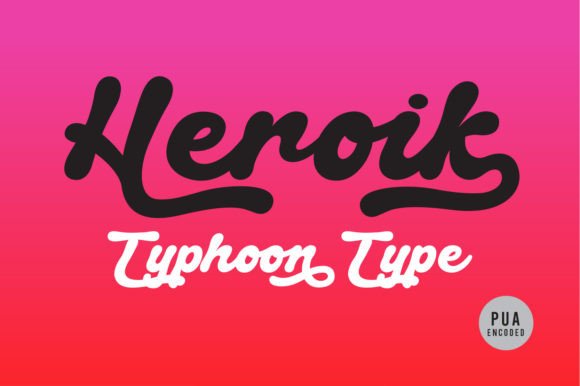
Embark on a typographic adventure with Heroik Font, an elegant script that dances across the screen with captivating rounded brush strokes. Step into a world of refined beauty and distinction, where artistry unfolds, and creativity takes center stage. Heroik captures the essence of sophistication, adding a touch of magic to your digital creations.
Unleash your imagination and dive into a sea of visual possibilities. Whether you're crafting captivating logos, enchanting invitations, or visually stunning social media posts, Heroik empowers you to make an unforgettable impact. Let your words flow with grace and charm, leaving a lasting impression on your audience.
With its meticulously crafted curves and sweeping lines, Heroik Font effortlessly elevates your designs, adding a dash of elegance and a touch of playfulness. It's the perfect choice for those seeking a font that exudes personality and charm. Transport yourself to a realm of visual enchantment, where every letter tells a story and every word captivates the senses.
More than just a mere font, Heroik Font is an artistic masterpiece, a stroke of genius that adds depth and dimension to your digital creations. Engage your audience, captivate their attention, and create a connection that goes beyond words. With Heroik, you have the power to evoke emotions, inspire action, and make your designs truly unforgettable.